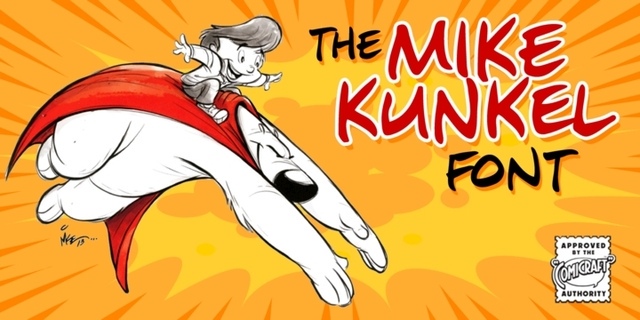
Mike Kunkel Font
Mike Kunkel Font is perfect for comic book lettering, graphic novel speech bubbles, cartoon animation titles, comic art exhibitions, independent comic publishing, superhero merchandise designs, comic convention signage, animation studio branding, children's comic books, and creative storytelling workshops. This distinctive typeface brings authentic comic book artistry and visual narrative energy to any sequential art project.
Mike Kunkel Font is exciting because it embodies the authentic spirit of independent comic book creation with its hand-crafted letterforms that capture the personal touch and artistic dedication of comic creators. Its artistic character instantly conveys creative authenticity, storytelling passion, and the intimate connection between artist and reader that defines exceptional comic art.
The Mike Kunkel Font family includes Regular weight with comic-style alternates, speech bubble variants, sound effect glyphs, and narrative flourishes that enhance the comic book aesthetic, providing comic creators with comprehensive tools for creating typography that feels genuinely hand-lettered and artistically authentic.
Comic book designers love Mike Kunkel Font for its exceptional ability to convey artistic personality and creative authenticity through carefully crafted letterforms. The font's handmade character and comic book heritage create immediate associations with independent creativity, artistic vision, and the personal storytelling style that makes comic books such a powerful medium for creative expression.
The design philosophy behind Mike Kunkel Font celebrates the artisanal nature of comic book creation and the personal connection between comic creators and their audiences, making it particularly effective for independent publishers, creative workshops, and artistic projects that value handmade quality over mass production. Creative teams working on original comic content find this font essential.
Whether used for independent comic series, animation projects, or creative storytelling materials, Mike Kunkel Font delivers the perfect combination of artistic authenticity and comic book charm. Its creative appeal and artistic integrity make it an indispensable choice for projects that celebrate the hand-crafted tradition of comic book artistry and independent creative expression.